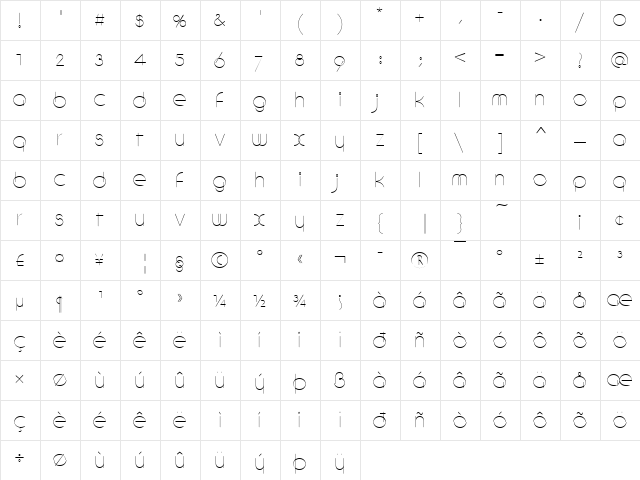
Cirkulus Regular
Design Context for Cirkulus Typeface
Cirkulus offers clean, dependable letterforms without strong stylistic allegiance, making it a practical choice for designers who need flexibility.
Pro Tip: Pair Cirkulus with a font of contrasting weight or personality to build a more expressive typographic hierarchy.